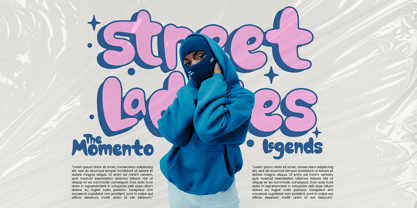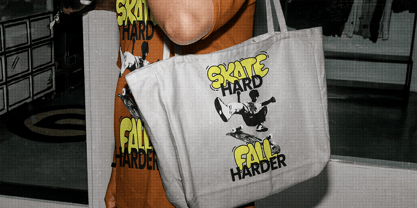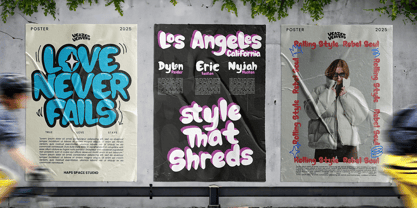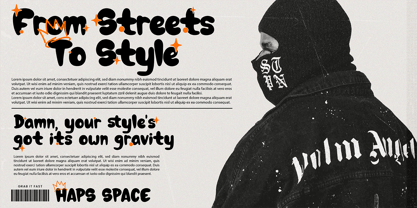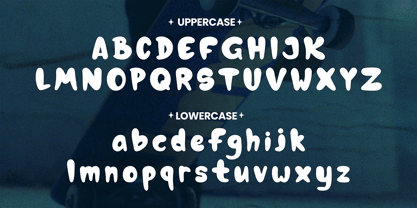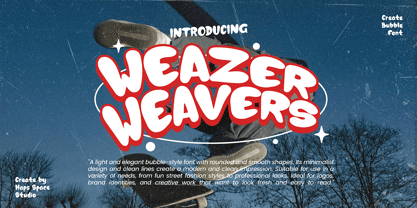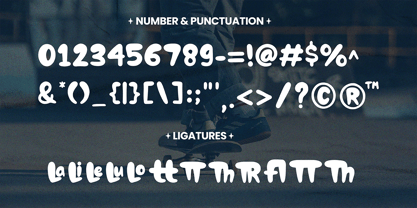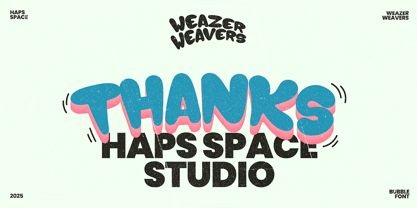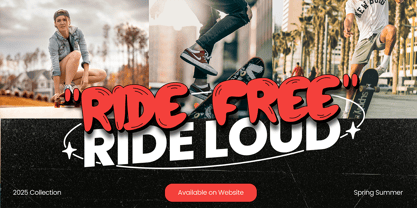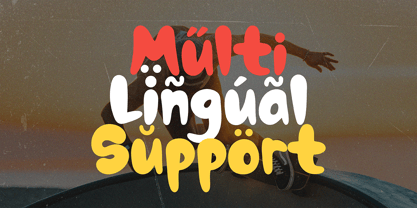
Weazer Display
by Haps Space
The Weazer Display Font Family was designed by Haris Purnama Putra and published by Haps Space. Weazer Display contains 1 styles. More about this family
Weazer Display is a bold and playful bubble display font designed to bring a cheerful and relaxed vibe to your creative projects. Its smooth, rounded edges and clean minimalist design make it highly versatile for a wide range of uses—from informal branding and logos to fun stickers, packaging, posters, and social media graphics. This font combines a modern aesthetic with a handcrafted feel, giving your designs a unique personality while maintaining professionalism.
Perfect for creatives looking to add a friendly and approachable style, Dirty Weather supports uppercase and lowercase letters, numbers, punctuation marks, and multilingual characters. Its customizable shapes allow easy pairing and blending with other design elements, making it an ideal choice for both personal and commercial projects.
Designers: Haris Purnama Putra
Current Foundry: Haps Space